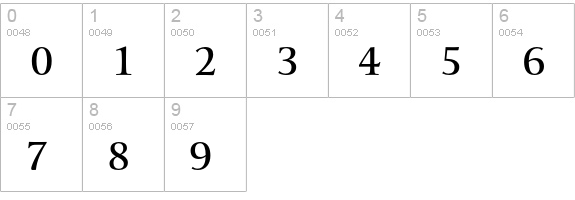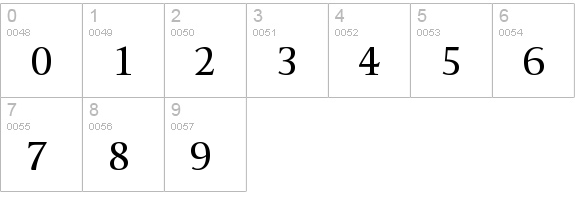
Mentor Std Font Details
Introducing Mentor Std, a versatile and elegant font that embodies sophistication and modernity. With its clean lines and timeless appeal, Mentor Std is the perfect choice for various design projects, from branding to editorial design. The font features a harmonious balance between traditional serif elements and contemporary design trends, making it a go-to choice for designers looking to make a statement. What sets Mentor Std apart is not just its aesthetic appeal, but also its accessibility. This premium font is available for free download at FontsMarket.com, making it easily accessible to designers and creatives looking to elevate their projects without breaking the bank. Whether you're working on a branding project, a website design, or a print publication, Mentor Std offers the versatility and style you need to bring your vision to life. Don't miss out on the opportunity to add Mentor Std to your font library. Download it for free today at FontsMarket.com and take your designs to the next level with this sophisticated and contemporary typeface.